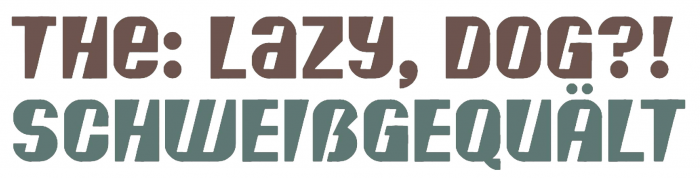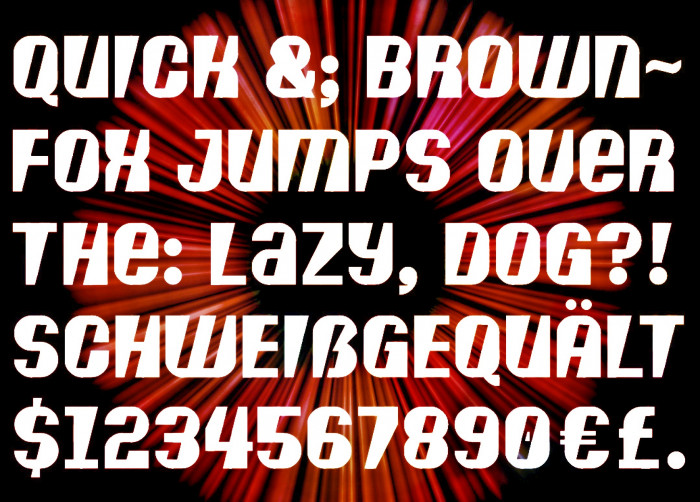
@jirinvk, @time.peace & @jingYo: Thanks a lot for your support and always kind comments, pals. Effectively, the optical illusion of the italics appears with the inner oblique space. It's a basic idea that I want to explore more in future works.
looking forward to these explorations. so simple concept, giving such a cool result! i really love these letterforms a lot and i feel these explorations of yours might be very fruitful (can bring many very cool fonts of this kind).
False italic unicase with "a" & "e" alternates, rough and black.
very nice!
Lovely optical illusion style with the false italics
neat
@jirinvk, @time.peace & @jingYo: Thanks a lot for your support and always kind comments, pals. Effectively, the optical illusion of the italics appears with the inner oblique space. It's a basic idea that I want to explore more in future works.
looking forward to these explorations. so simple concept, giving such a cool result! i really love these letterforms a lot and i feel these explorations of yours might be very fruitful (can bring many very cool fonts of this kind).
Reminds me of Baveuse for some reason.
Nice
Very nice